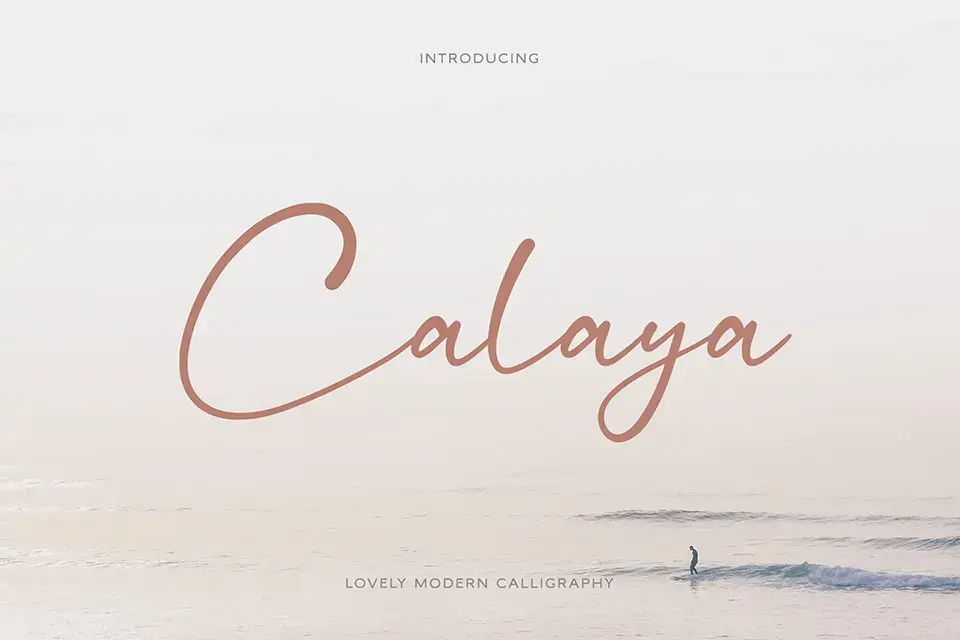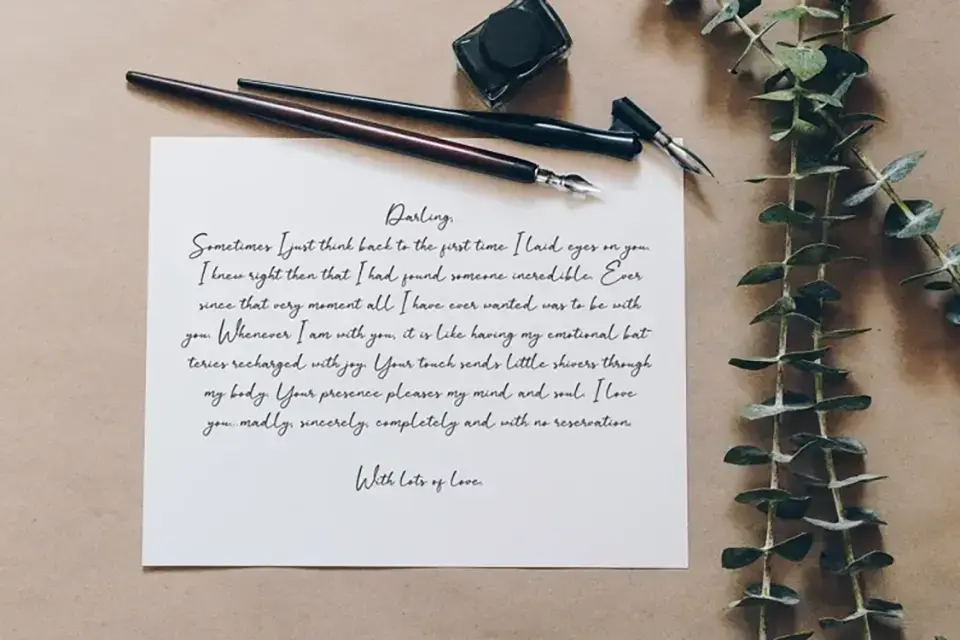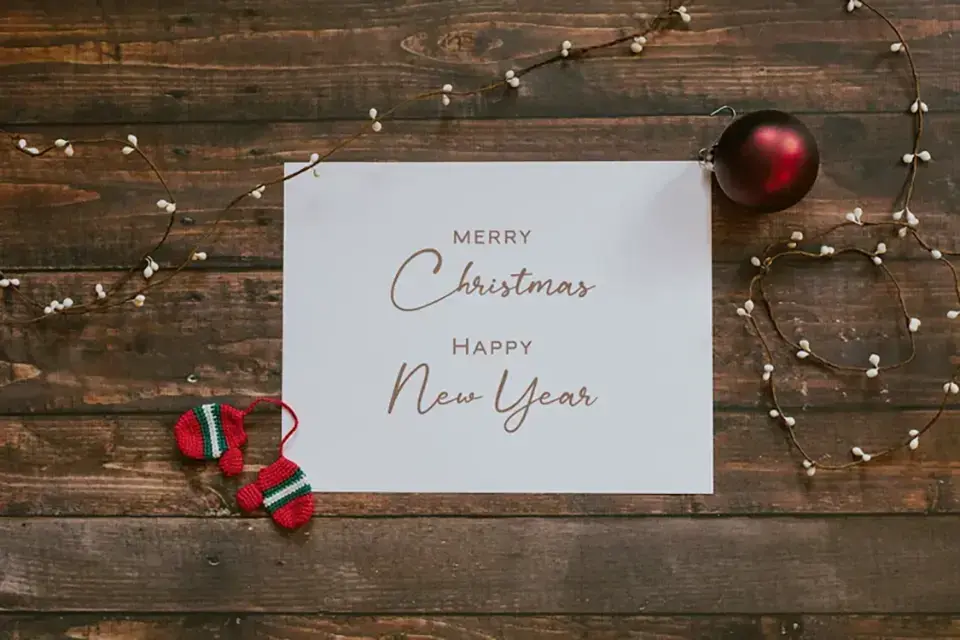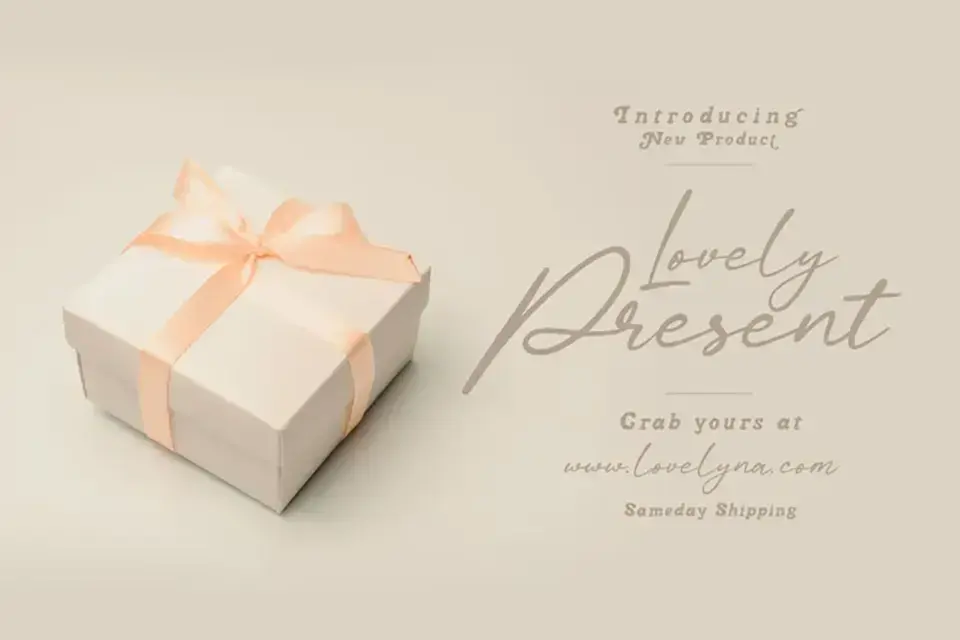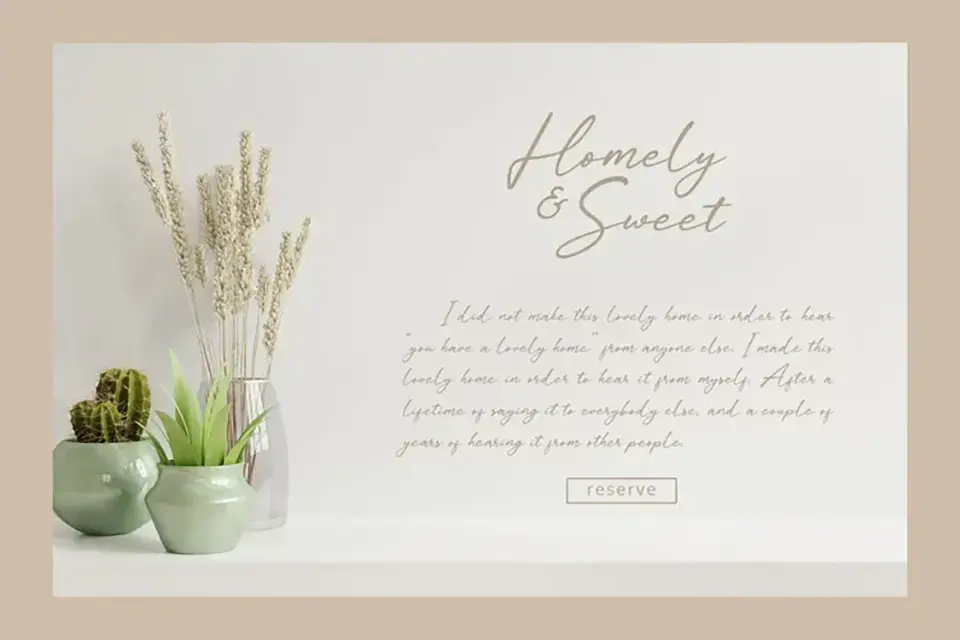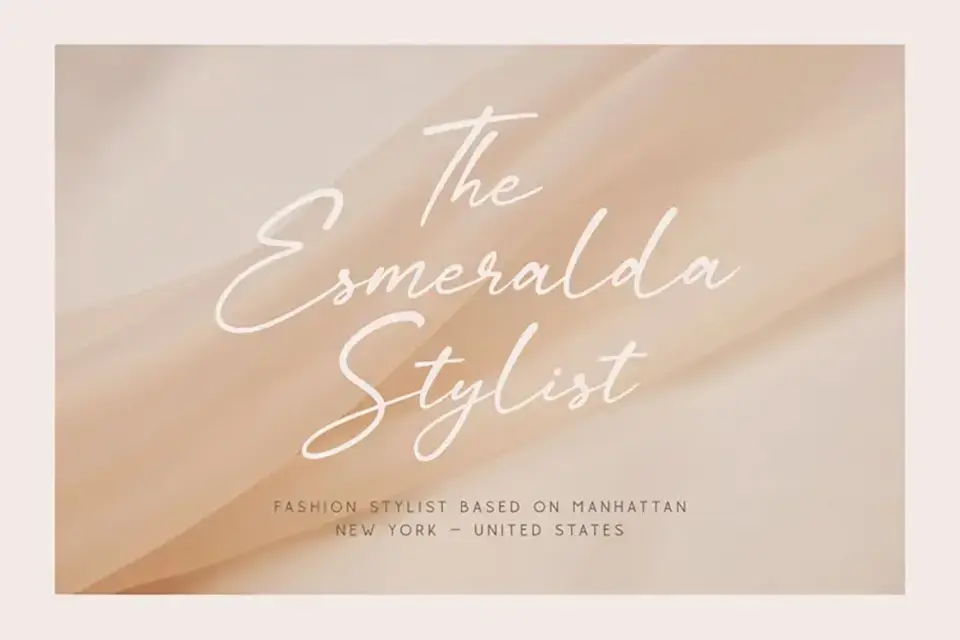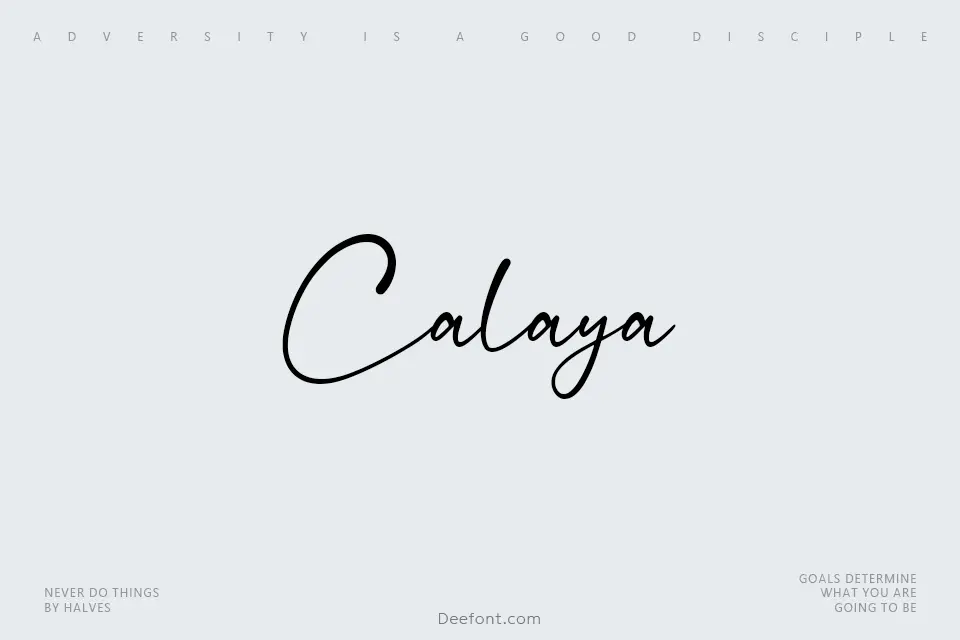
Calaya Font
Calaya is a contemporary handwritten script font that seamlessly blends modern elegance with authentic calligraphic charm. Featuring flowing letterforms with graceful strokes and feminine aesthetics, this versatile typeface excels in fashion branding, luxury e-commerce, wedding invitations, greeting cards, and upscale corporate identities. The font's natural handwritten character makes it ideal for creative projects including posters, logos, book titles, branding materials, and artistic typography that demands both sophistication and personal warmth.